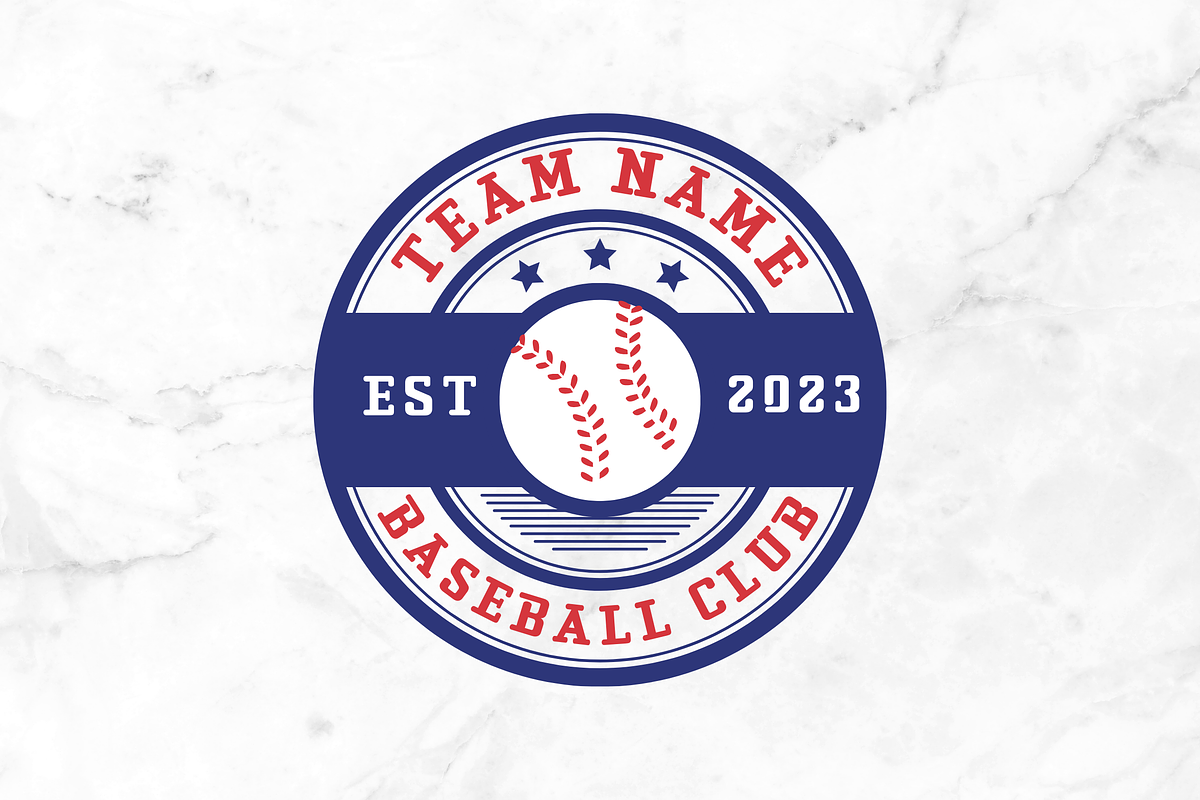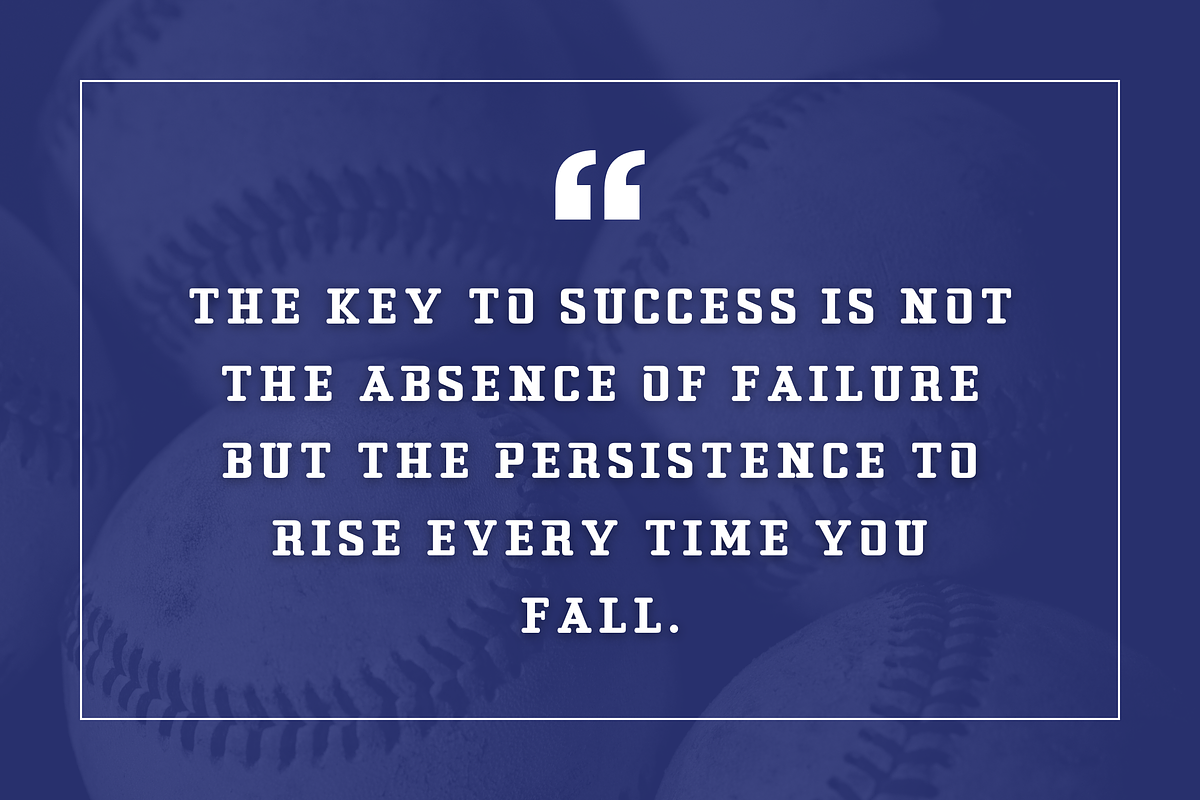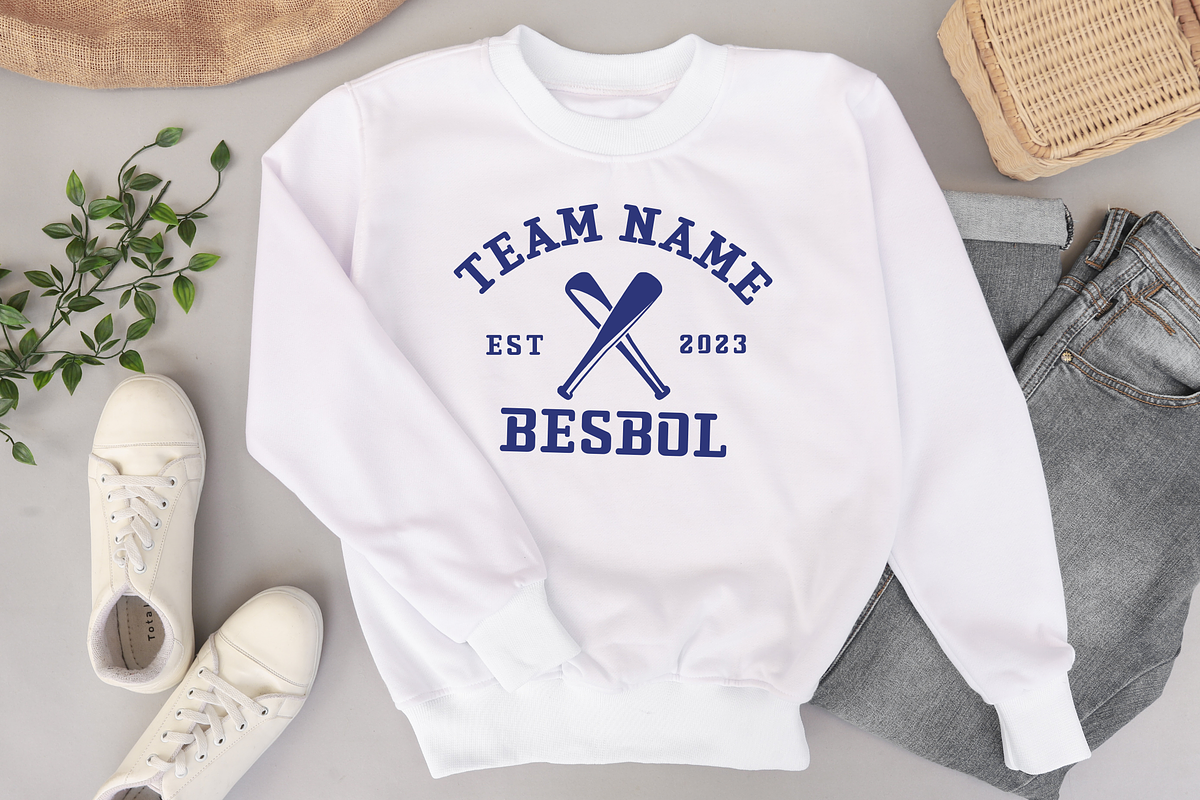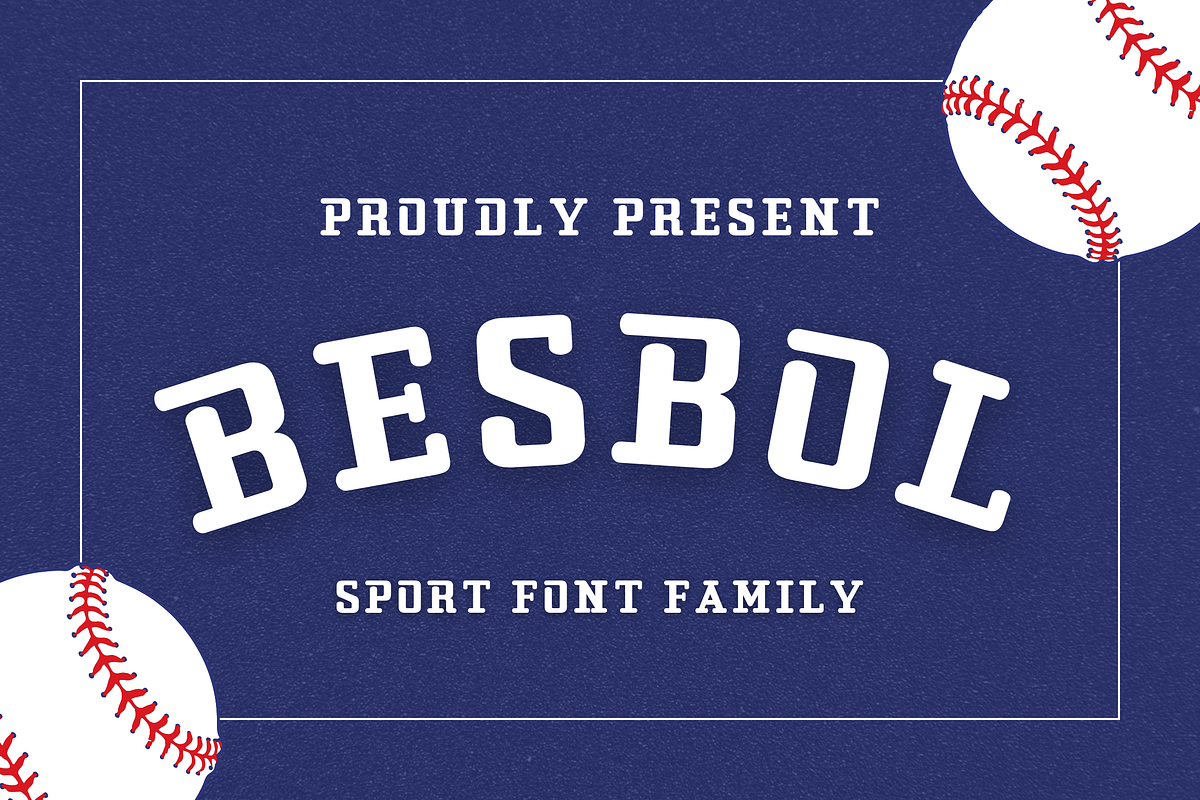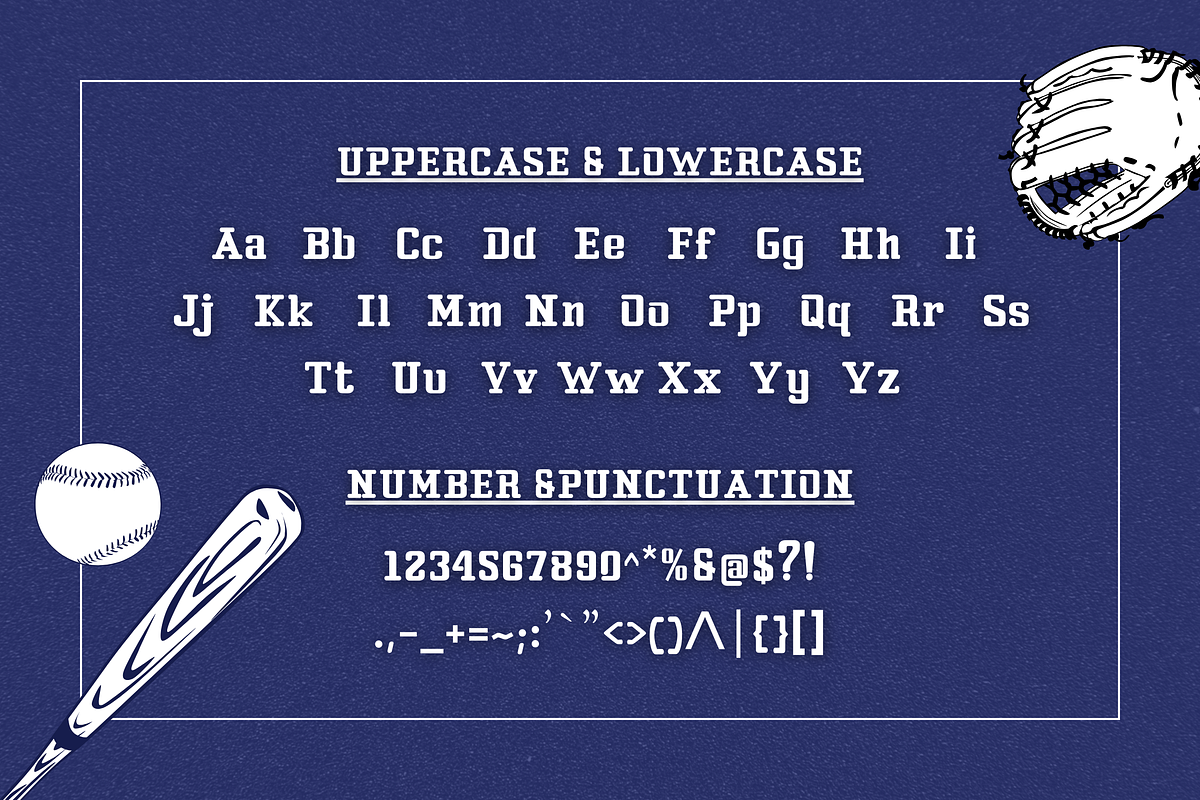
Besbol | Slab Serif Display
Besbol font is characterized by a slab serif font with a modern and classic letter design. The slab serif font style also adds a simple yet attractive feel that is approachable, making it a friendly and attractive choice for any project.